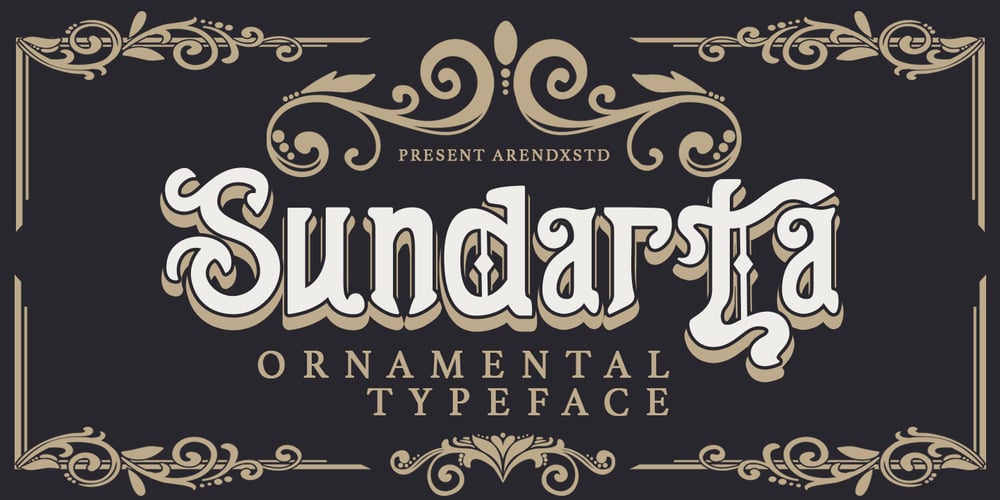
Sundarta
Sundarta font
Sundarta Font Family was designed by Asep Rendi and published by Arendxstudio. Sundarta contains 1 styles and family package options. Sundarta is a vintage font that is unique and very suitable for the display needs of each of your retro designs.Sundarta comes with OpenType features such stylistic alternates, stylistic sets & ligatures. It’s suitable for logotypes, posters, badges, book covers, t-shirt designs, packaging and more.